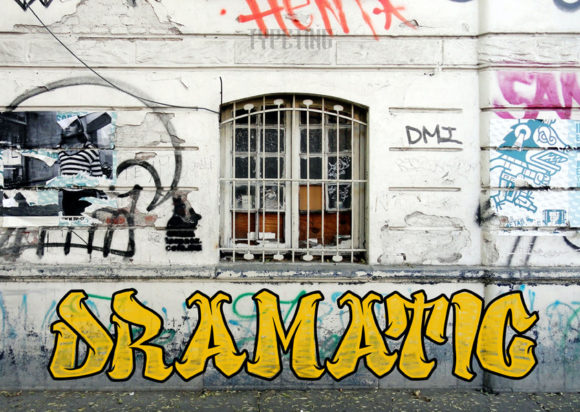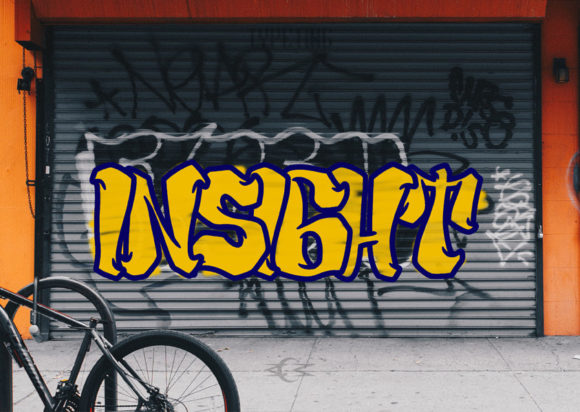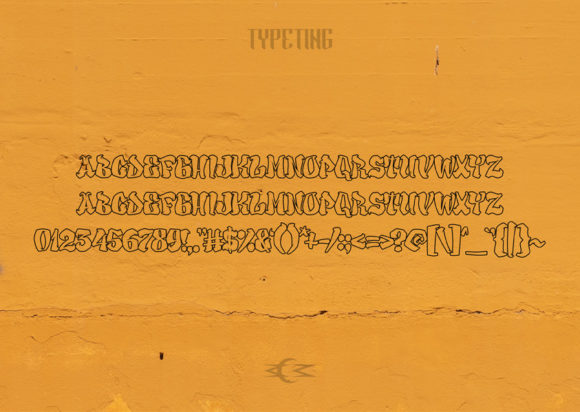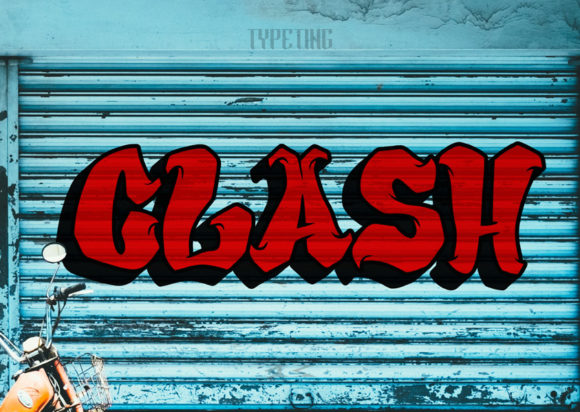
Introducing Clash Font: The Ultimate Graffiti-Inspired Display Font
Are you tired of using the same old boring fonts for your designs? Look no further! Clash Font is here to revolutionize your creative projects with its bold, cool, and graffiti-styled display font. This original look is perfect for crafty ideas, from letterheads and titles to stationery, and is sure to appeal to a wide range of designers and crafters.
What is Clash Font?
Clash Font is a unique and stylish display font that is inspired by the edgy and urban look of graffiti. Its bold and cool design makes it perfect for creating eye-catching titles, headings, and logos that are sure to grab attention. With its original and distinctive look, Clash Font is ideal for designers and crafters who want to add a touch of personality and style to their projects.
Key Features of Clash Font
• Graffiti-inspired design: Clash Font has a bold and edgy design that is inspired by the urban look of graffiti.
• Cool and stylish: This font has a cool and stylish look that is perfect for creating eye-catching designs.
• Display font: Clash Font is a display font that is designed to make a statement and grab attention.
• Original look: This font has an original and distinctive look that sets it apart from other fonts.
• Versatile: Clash Font is versatile and can be used for a wide range of projects, from letterheads and titles to stationery.
Uses of Clash Font
Clash Font is a versatile font that can be used for a wide range of projects, including:
• Letterheads and titles: Use Clash Font to create bold and eye-catching letterheads and titles that are sure to grab attention.
• Stationery: Add a touch of personality and style to your stationery with Clash Font.
• Logos and branding: Use Clash Font to create unique and memorable logos and branding for your business or project.
• Posters and flyers: Clash Font is perfect for creating eye-catching posters and flyers that are sure to stand out.
• Social media graphics: Use Clash Font to create bold and stylish social media graphics that are sure to grab attention.
Why Choose Clash Font?
There are many reasons why you should choose Clash Font for your design projects. Here are just a few:
• Unique and original: Clash Font has a unique and original look that sets it apart from other fonts.
• High-quality design: This font has a high-quality design that is sure to impress.
• Versatile: This font is versatile and can be used for a wide range of projects.
Tips for Using Clash Font
Here are a few tips for using Clash Font:
• Use it boldly: Clash Font is a bold font, so use it boldly to create eye-catching designs.
• Experiment with colors: This font looks great in a wide range of colors, so experiment to find the perfect color for your design.
• Pair it with other fonts: Clash Font can be paired with other fonts to create a unique and stylish look.
Clash Font is a unique and stylish display font that is perfect for designers and crafters who want to add a touch of personality and style to their projects. With its graffiti-inspired design, cool and stylish look, and versatile uses, Clash Font is sure to become a favorite font in your collection. So why wait? Download Clash Font today and start creating eye-catching designs that are sure to grab attention!